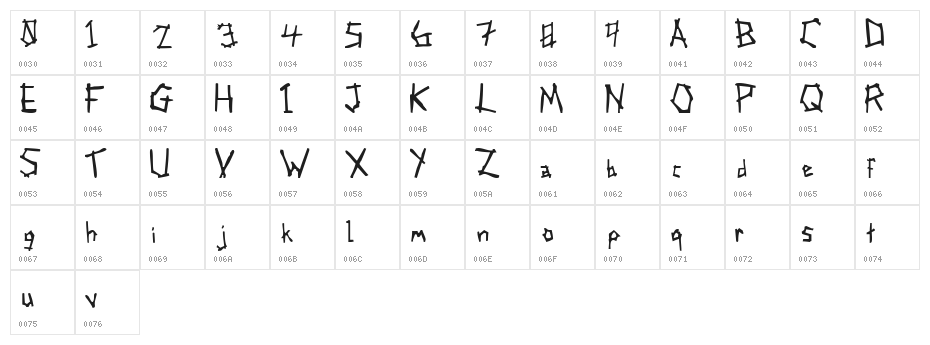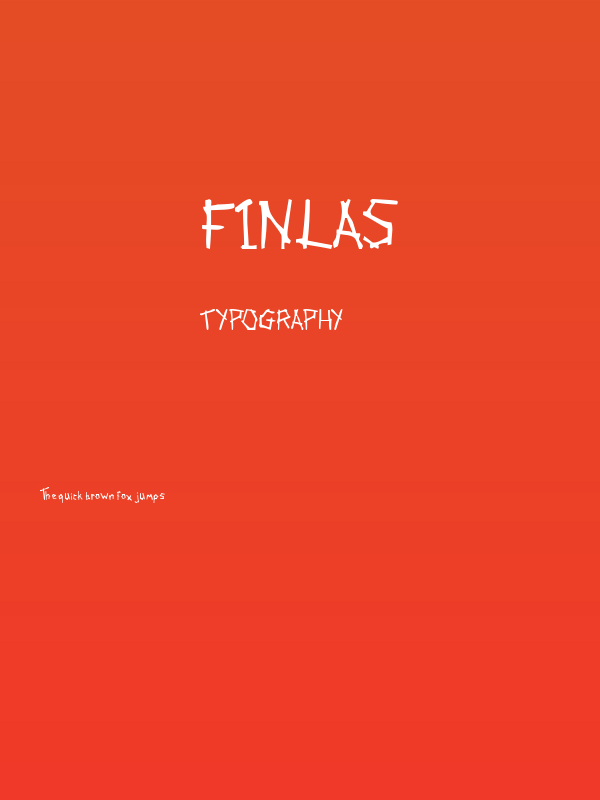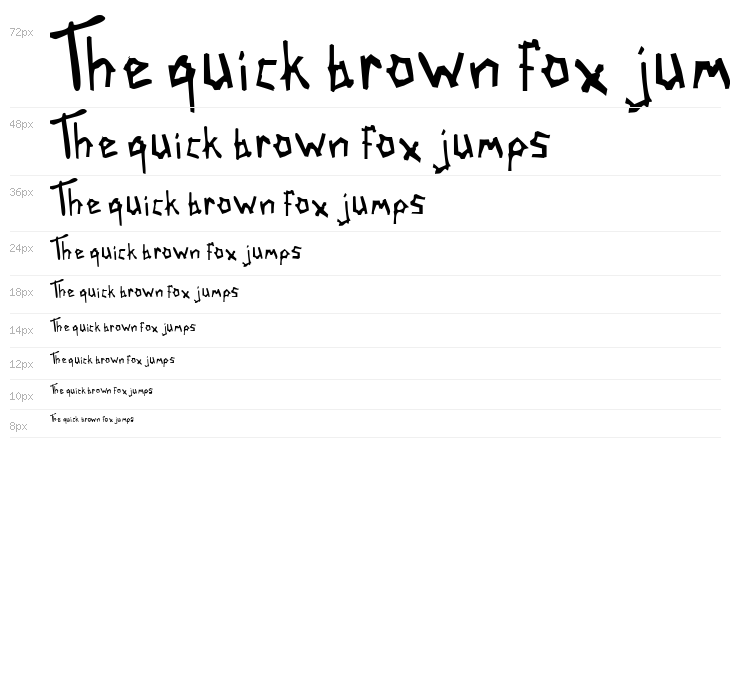
Finlas Font
✎ Graffiti
| Stile generale | Edgy, Rebellious, Graffiti |
| Caso d'uso | Logos, Posters, Album Covers |
| Progetti proposti | Ideal for projects requiring a bold, rebellious look, such as album covers, street art designs, or edgy branding materials. |